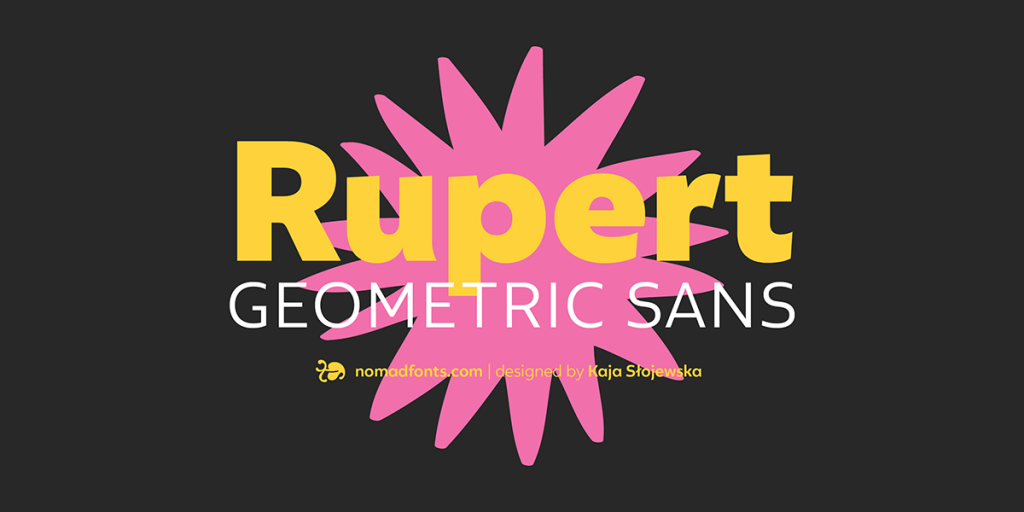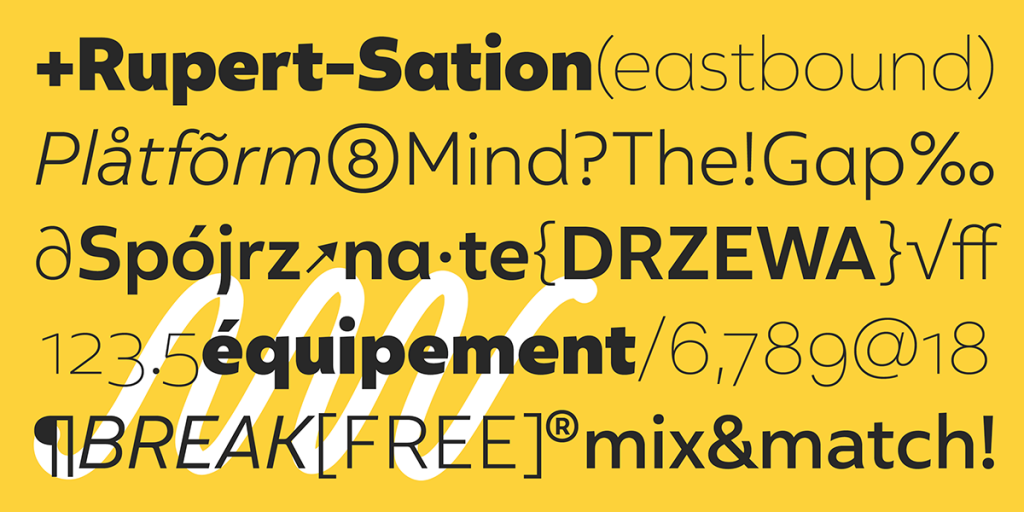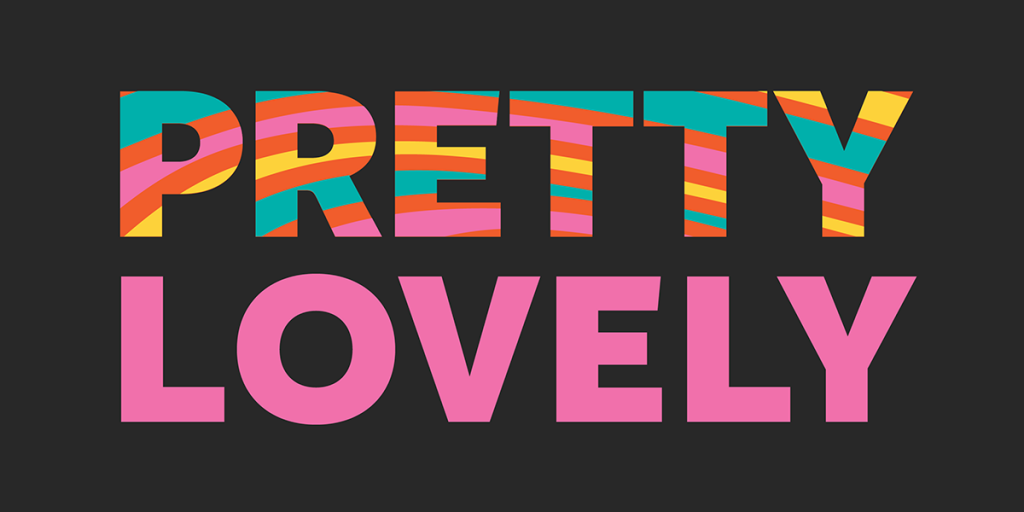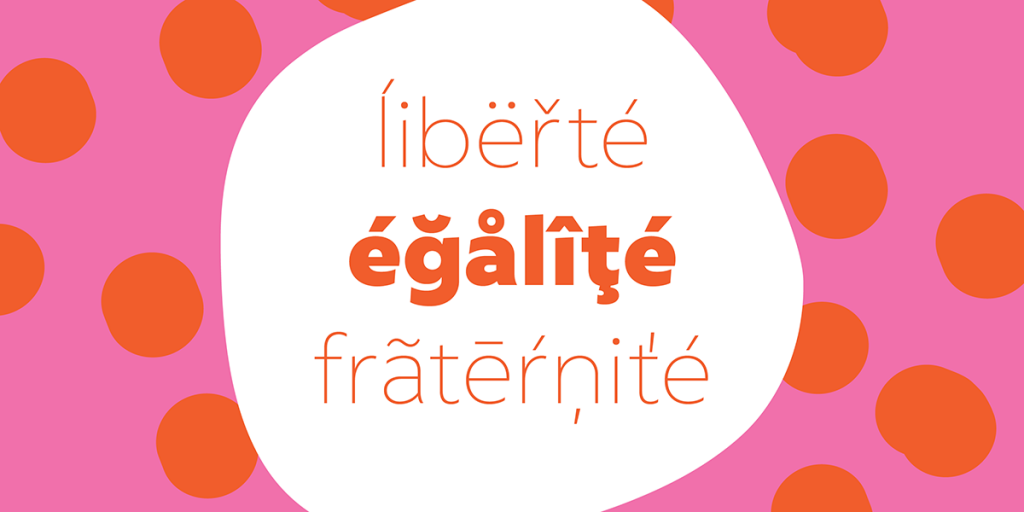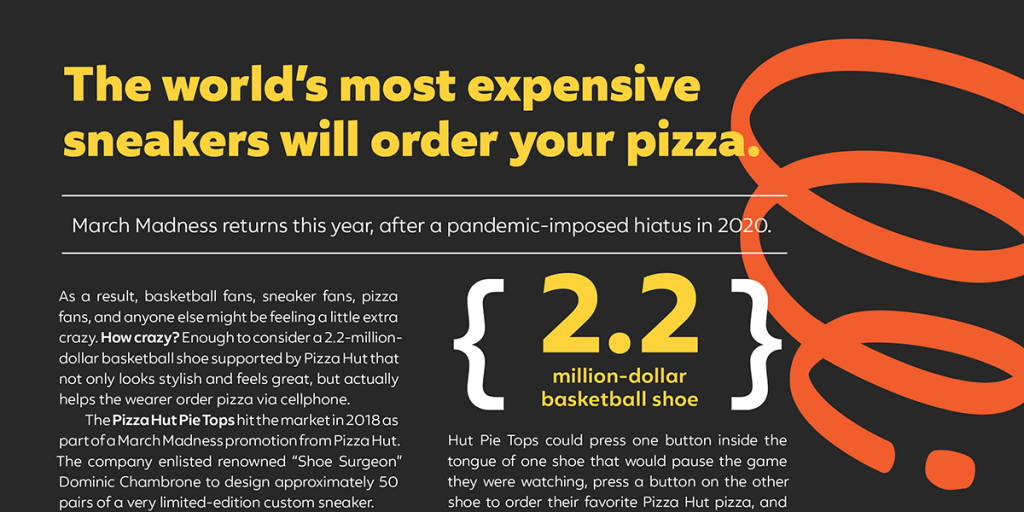
Rupert is a geometric sans-serif font with accompanying italics that comes in eight weights ranging from Thin to Black. It currently supports extended Latin and intends to expand in the future to meet all of your requirements. Tabular and old-style figures, fractions, ligatures, and case-sensitive forms are among Rupert’s OpenType features.
Its adaptable enough to work in a variety of settings, including display, corporate, editorial, web, and many others. The best part is that Rupert Light variant is completely free to download! So grab it right now and start collaborating on some amazing projects.